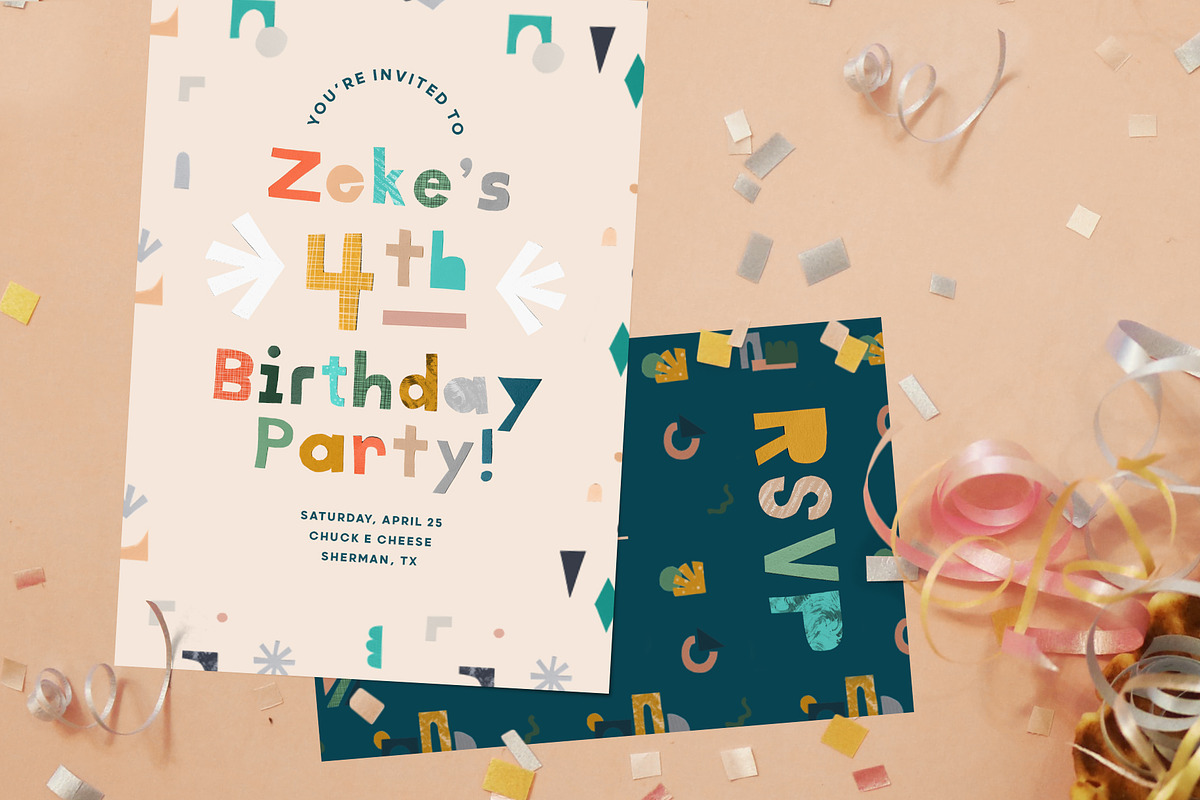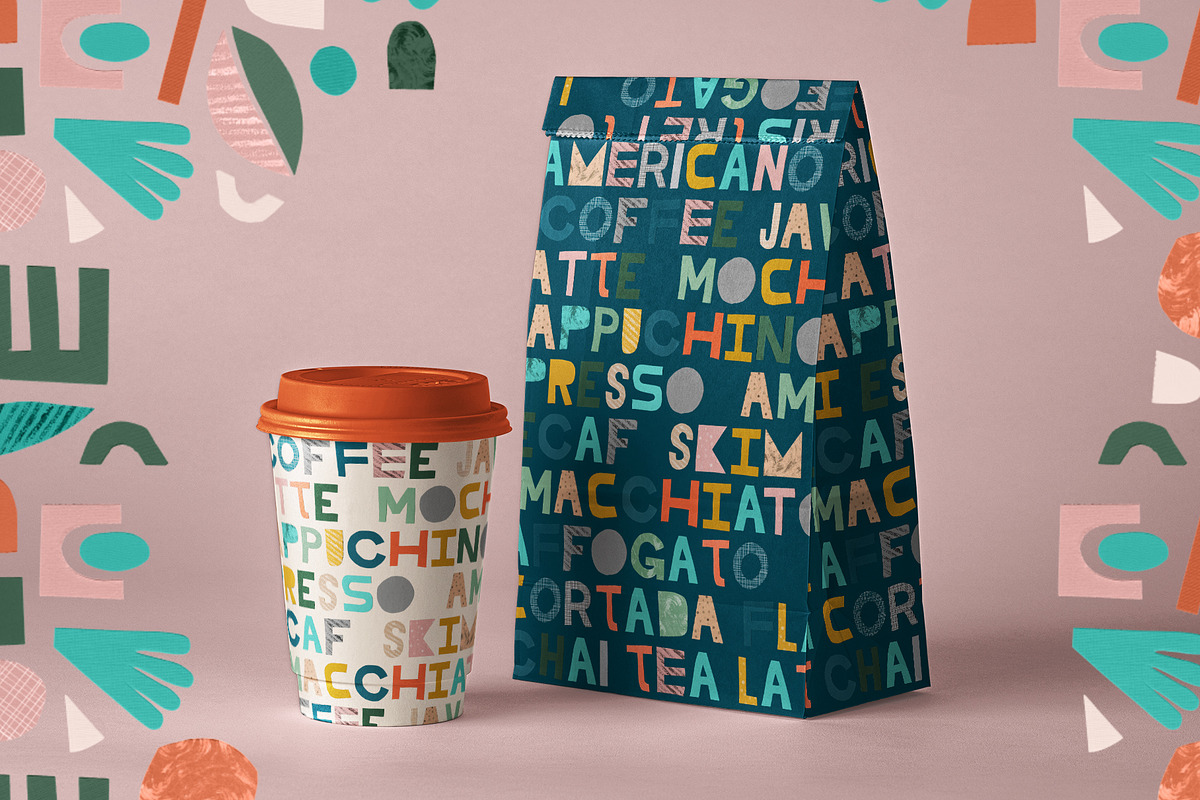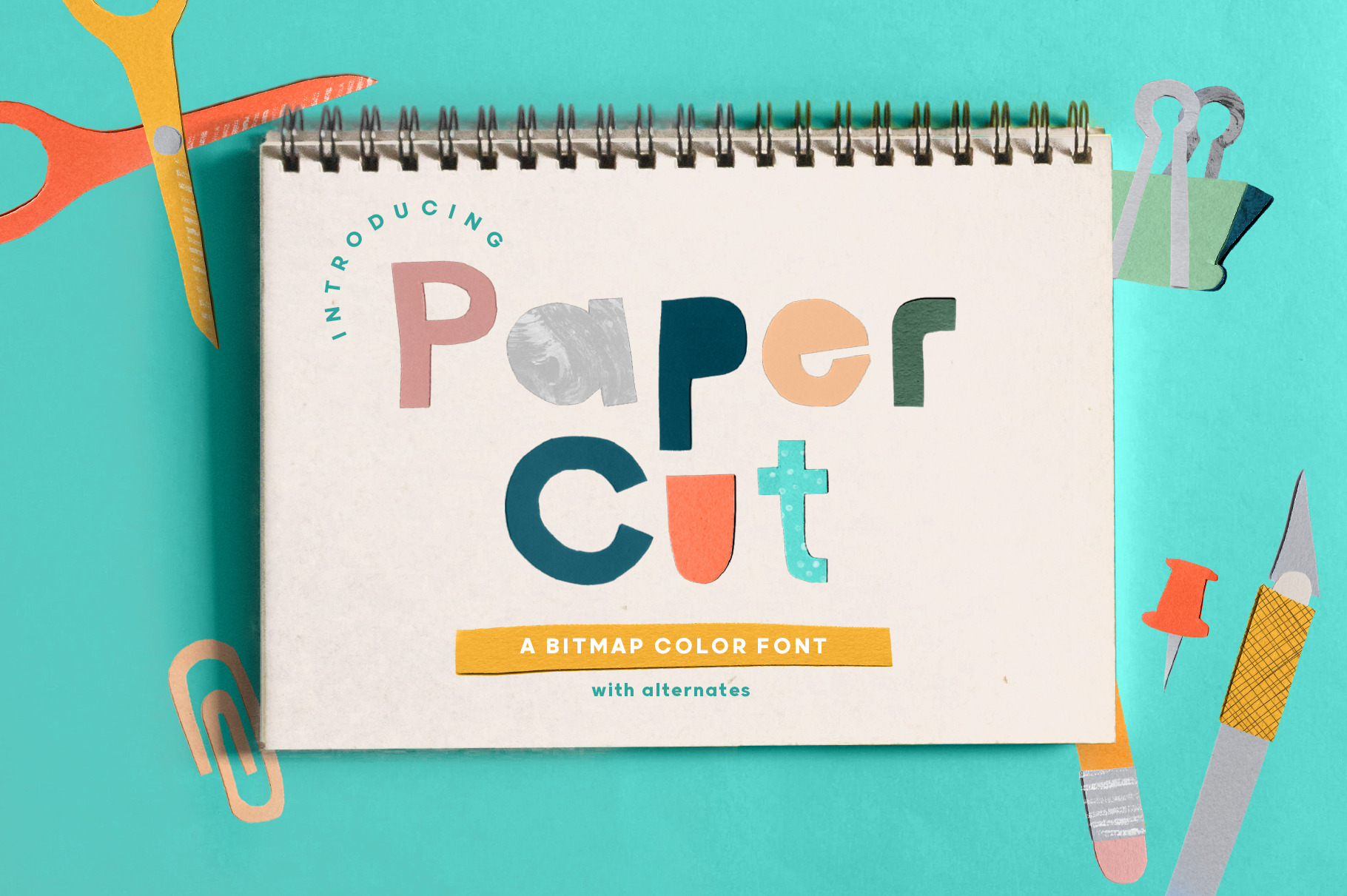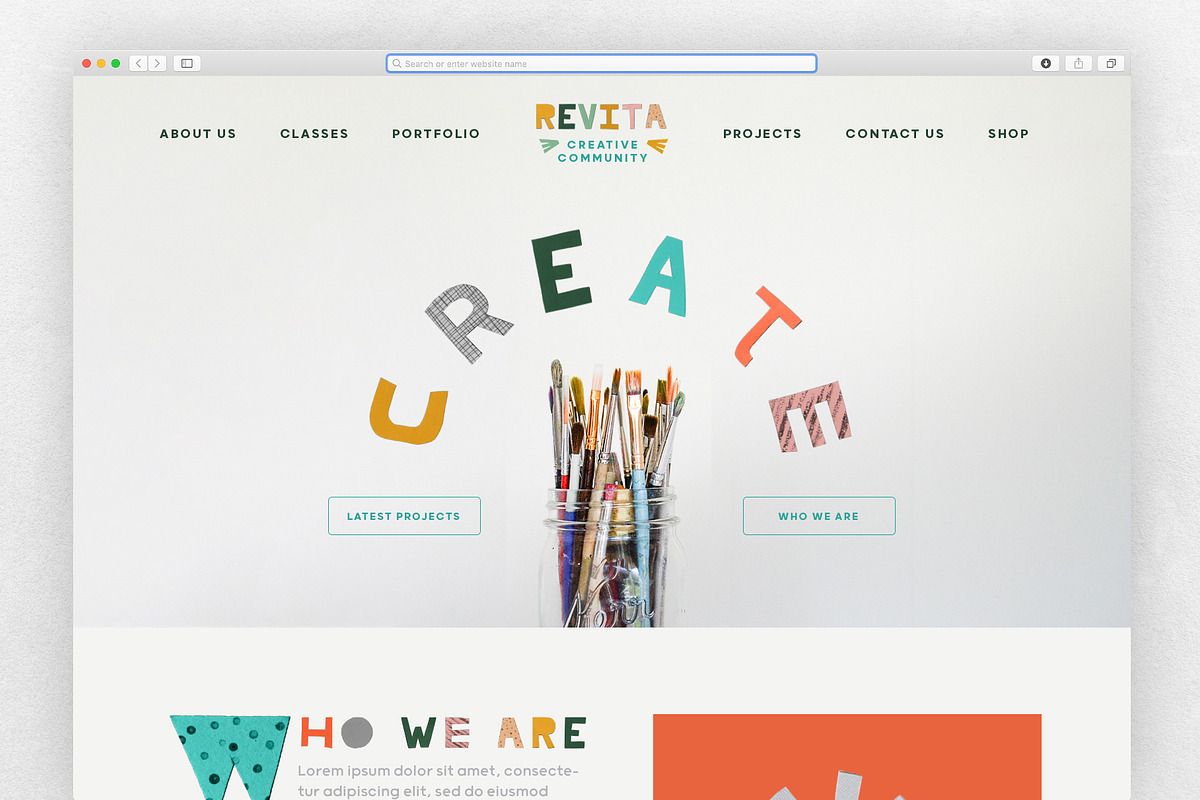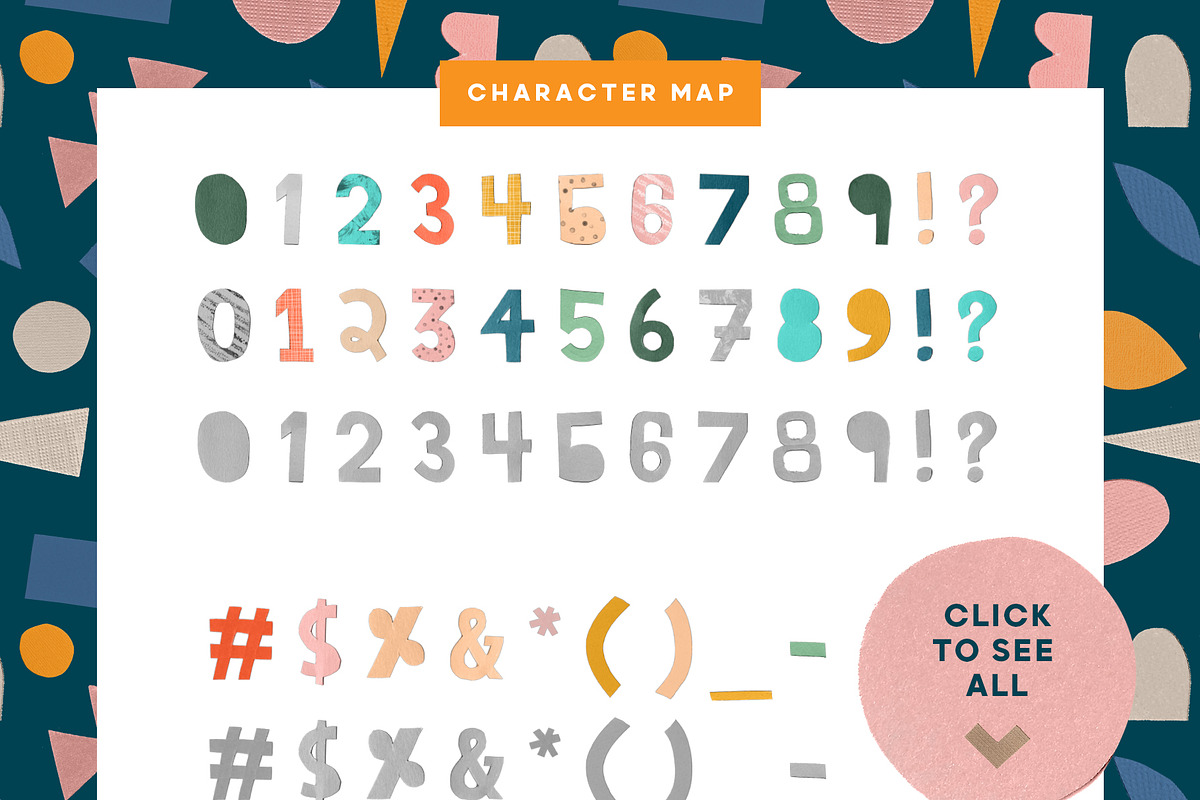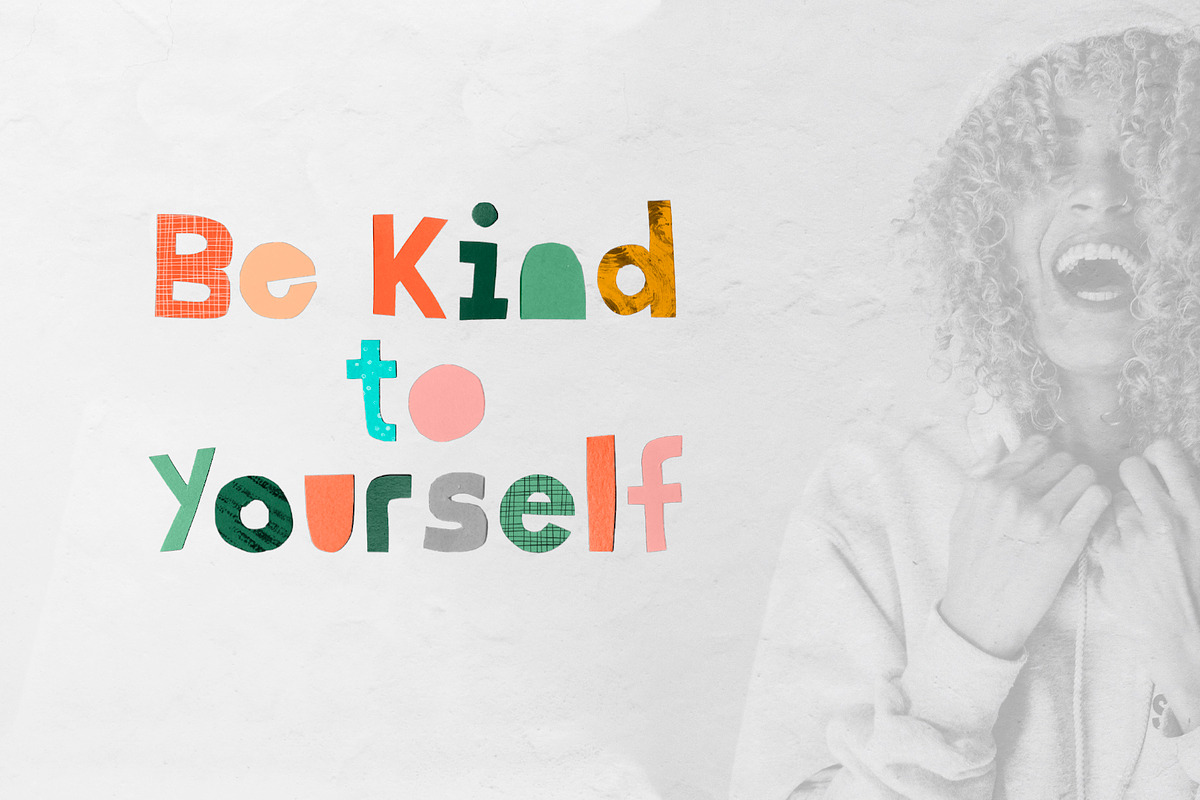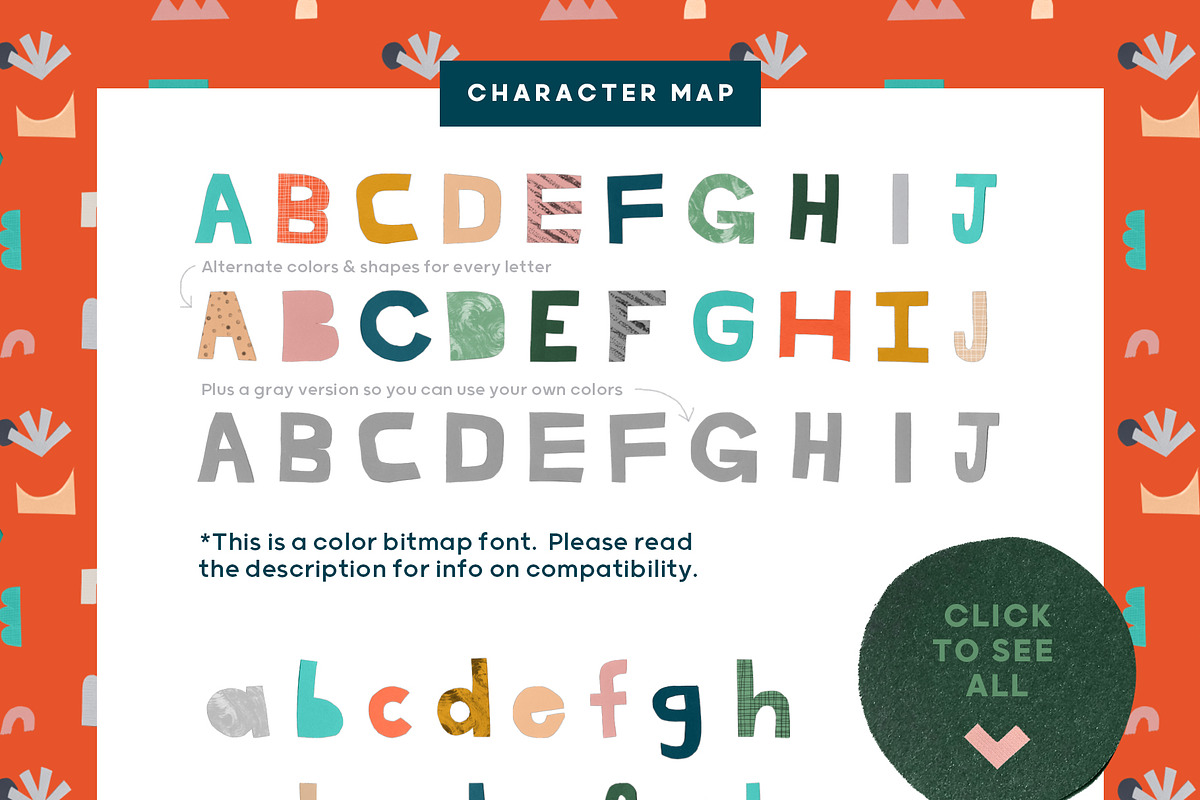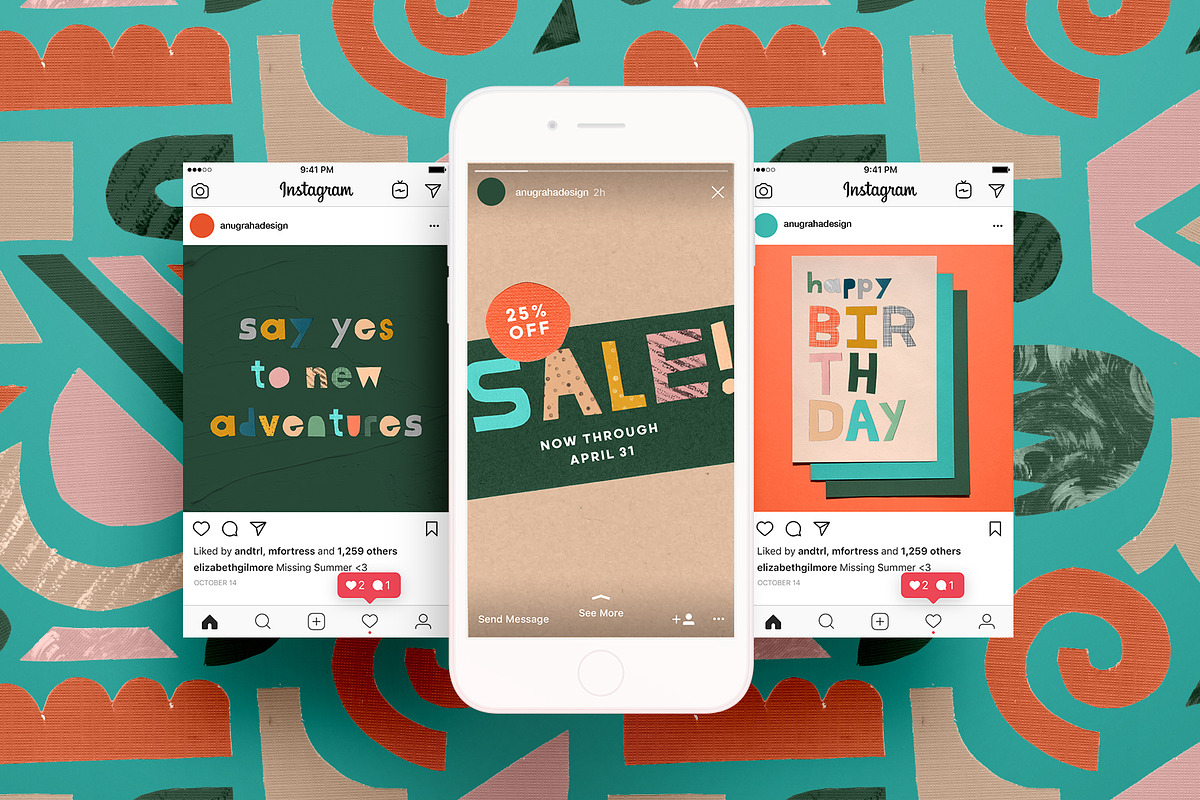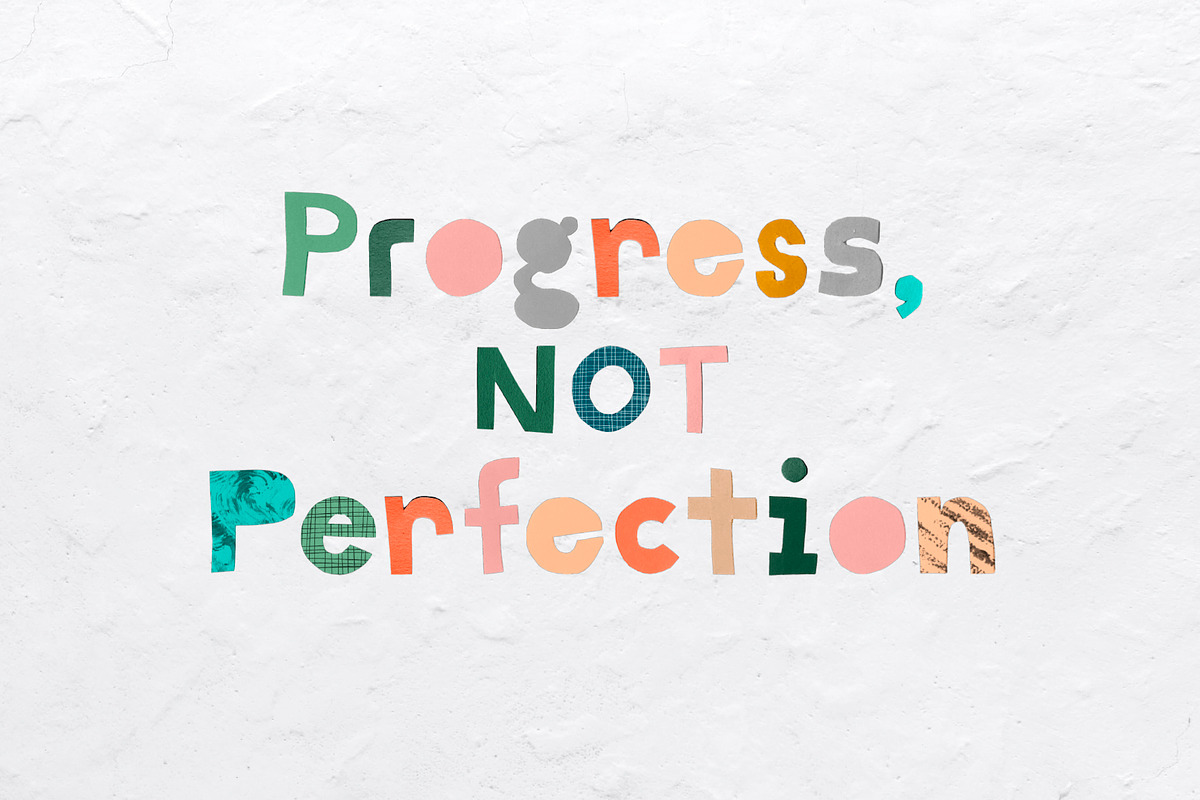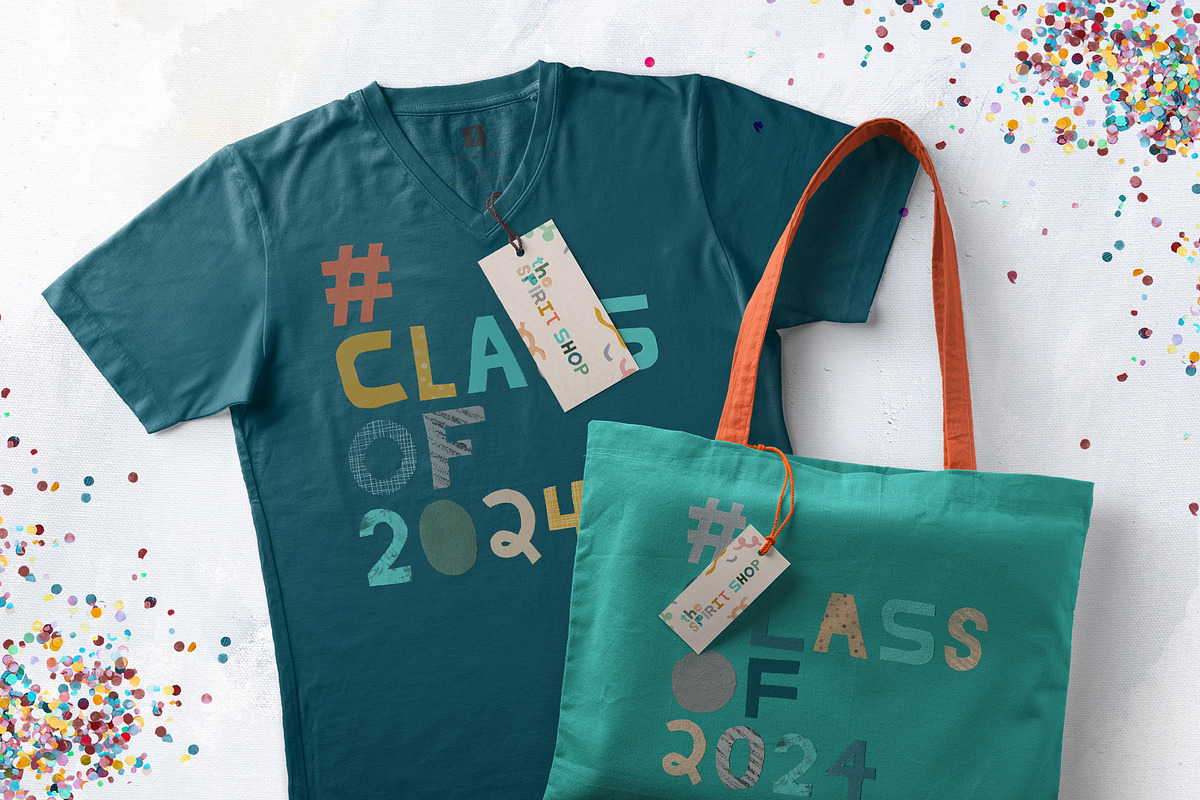
Paper Cut Handmade Font
Introducing Paper Cut, a super fun and colorful font made from real cut paper shapes and handmade textures. This font gives a beautiful handmade feel to a wide range of products, from branding to web design, social media to packaging! The geometric shapes make it especially perfect for kids projects and brands (or those who are just young at heart ❤️)
- Paper Cut Color Font
- Paper Cut - Alternates, with different colors and shapes for the letters, to give your text variety and plenty of options!
- Paper Cut - One Color , which can be customized to suit your project's colors.
- Paper Cut - One Color Alternates
All fonts include a full set of upper and lowercase letters, numbers and standard punctuation.